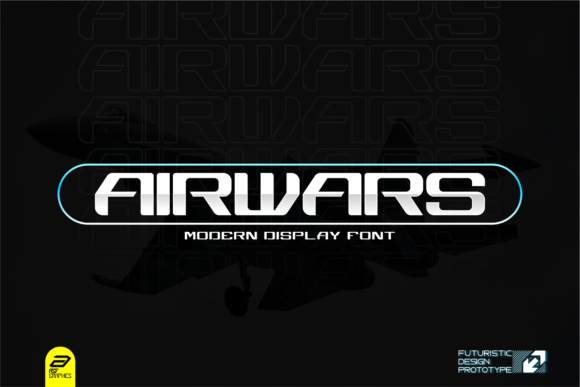
**Awaken your creativity with Airwars Font: The Ultimate Gaming Subtitles Font**
Prepare yourself for an immersive gaming experience like never before with Airwars Font, the font meticulously crafted to elevate your gaming adventures. Immerse yourself in a world of digital duels and epic battles, where every subtitle and text element radiates with a futuristic charm. This extraordinary display font is not just a collection of letters; it's a gateway to a realm where imagination takes flight.
**Unleash the Power of Futuristic Aesthetics**
Airwars Font embodies the essence of modernity, exuding a cool and techno vibe that will captivate your audience. Its bold and striking characters command attention, effortlessly transforming ordinary text into captivating focal points. Whether you're creating gripping posters for your clan, designing logos that evoke a sense of digital prowess, or crafting game titles that hint at the thrilling journeys within, Airwars Font is your ultimate weapon.
**Precision-Engineered for Gaming Excellence**
Every curve and angle of Airwars Font has been meticulously designed to complement the fast-paced, adrenaline-fueled world of gaming. Its crisp and clean lines ensure readability even in the midst of chaotic battles, while its unique style adds an undeniable touch of flair to your in-game communication. Prepare to witness your gaming prowess soar to new heights as you conquer every challenge with the confidence of a true digital warrior.
**Immerse Yourself in a World of Creative Possibilities**
But Airwars Font's brilliance extends far beyond the realm of gaming. Its versatility and captivating design make it an exceptional choice for a wide range of creative projects. Unleash your inner artist and add a touch of futuristic elegance to your website designs, social media posts, and even personal branding. The possibilities are endless, and with Airwars Font as your creative companion, your imagination will know no bounds.
**Experience the Future of Digital Expression**